Let's talk about fonts! Think of them as the clothes your words wear. They can make your message look super cool or just plain boring. If you want to make a splash without being too fancy, display sans serif fonts are the way to go.
These fonts are neat, up-to-date, easy to read, and made to pop. Good fonts can totally change things, whether you're building a brand, making a website, or putting together a social media thing.
Why sans serif, though? These fonts have been big for a while because they're simple and easy to use. When you use them for big stuff like titles or logos, they really grab people's eyes. You can't go wrong with them.
I'm going to show you 20 of the best display sans serif fonts out there, from old favorites to what's hot right now. I'll also tell you how to use them, where to find them, and what to look for. Ready to get inspired? Let's jump in!
Understanding Display Sans Serif Fonts
Let's talk about display sans serif fonts. What are they, and why are they so cool?
A display font is made to look awesome when it's big. Think headlines, logos, and posters. They have more character than normal fonts, which are made to be read in small sizes.
Sans serif fonts don't have those little serif lines at the end of letters. They are usually neat, modern, and simple, which makes them great for today's designs. When you mix a bold display style with the clean look of sans serif, you get fonts that are strong and do a lot.
Display sans serif fonts look good and grab your attention, say what you mean, and set the mood. They are clear and leave a mark.
For example, Helvetica can show trust, and Bebas Neue adds boldness. Display sans serif fonts are the voice of your design, and they speak up.
When and Where to Use Display Fonts
Knowing when to use a display sans serif font is just as important as picking the right one.
Best places to use display fonts
- Web Design:
- Hero sections
- Page headers
- Call-to-action buttons
- Print Media:
- Posters
- Magazine covers
- Flyers
- Branding Assets:
- Logos
- Packaging
- Business cards
- Advertising:
- Billboards
- Social media ads
- Email headers
- App & UI Design:
- Onboarding screens
- App headers
- Tab labels
The golden rule? Use them where you need to draw attention and convey personality. Avoid using display fonts in long-form content or body textโtheyโre not built for that.
20 Best Display Sans Serif Fonts for Designers
Letโs dive into the real dealโthe top 20 display sans serif fonts that every designer should have in their toolkit. Whether you're designing for web, print, or branding, this curated list will give you high-quality, versatile font inspiration.
1. Tenebrous Display Font Family โ Modern Sans Serif Typography
Tenebrous is a sans serif font made for getting people's attention. It comes in 9 weights, from super thin to extra bold. This font is easy to for magazines, posters, logos, websites, and titles.
Tenebrous has a simple, geometric style that still feels unique. Itโs good for modern logos, 70s-style posters, cool designs, and editorial layouts. You can use it for a retro, groovy, or current feel. Whatever you're working on, Tenebrous is strong, flexible, and professional.
2. Feaqsta Display Sans Serif Font โ Ultra-Modern Typography
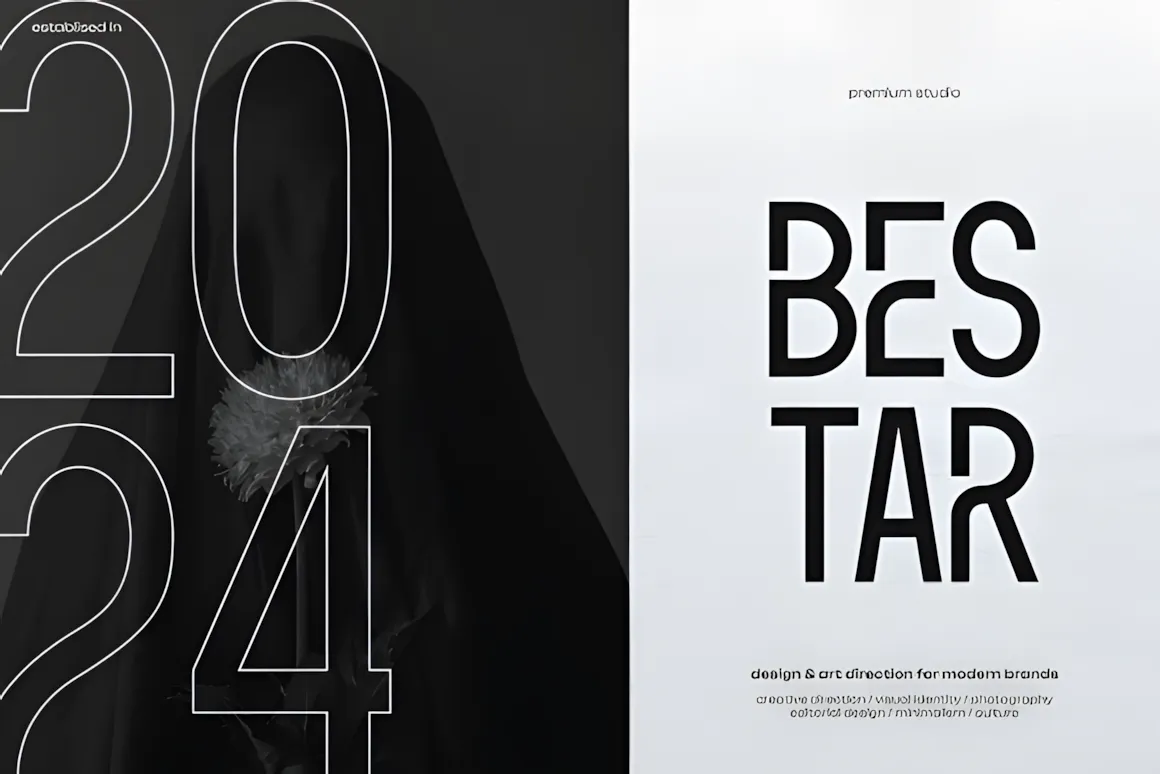
Feaqsta is a cool, modern sans serif font that's all about making a statement. It mixes clean lines with some really interesting letter shapes. The unique cuts and letter options, plus some stylish pairingsโespecially in the F and Rโmake it stand out.
Feaqsta has a simple but memorable look, so itโs great for things like fancy fashion brands, magazines, cool packaging, album covers, and modern website headings. Stick with the regular style if you want clarity, or play around with the letter pairings and alternatives to give your design a stylish, futuristic feel.
3. Golke Font โ Bold Display Sans Serif with Strong Visual Impact
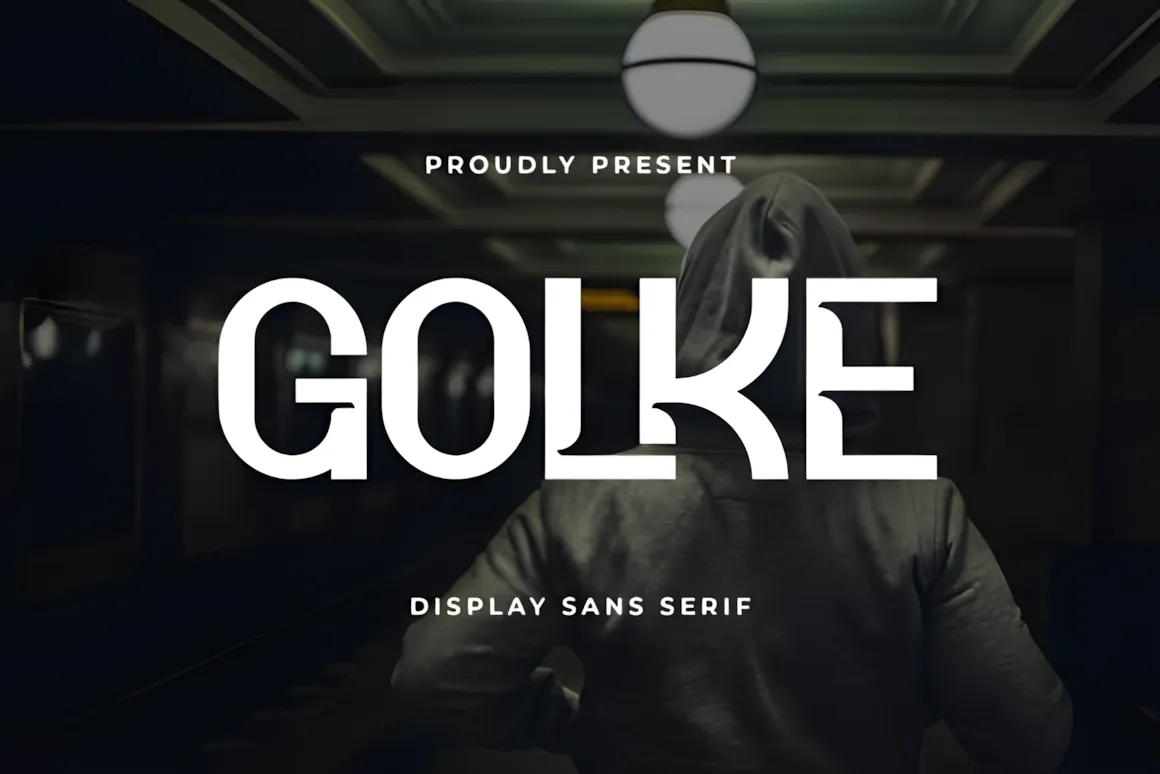
Golke is a striking display sans serif font created to deliver bold personality and powerful visual presence. With sharp angles, modern proportions, and uniquely crafted letterforms, Golke stands out with a confident, contemporary aesthetic.
Perfect for branding, headlines, posters, editorial layouts, and digital content, this font is designed to grab attention and elevate creative projects that demand a strong typographic voice.
โ Display sans serif
โ Sharp, modern letterforms
โ Ideal for branding & headlines
โ Perfect for print and digital design
4. Merdale Font โ Modern Display Sans Serif with Artistic Style
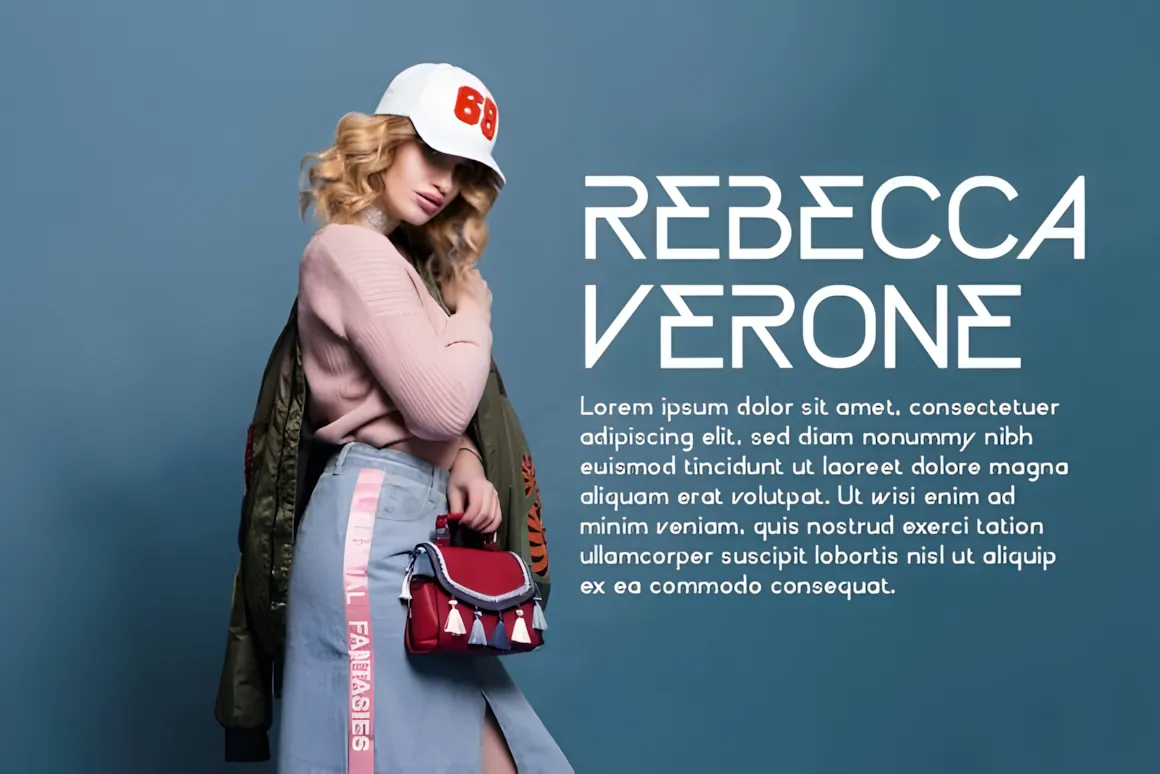
Merdale is a modern display sans serif font with a distinctive character and creative flair. Featuring playful curves, clean lines, and carefully designed letterform variations, it delivers a bold yet approachable look that feels both modern and expressive.
Perfect for magazine headlines, posters, business cards, product packaging, and digital branding, Merdale helps your designs stand out with confidence and style.
โ Modern display sans serif
โ Artistic yet clean letterforms
โ Ideal for print & digital branding
โ Great for headlines and packaging
5. Infinity Font โ Bold Geometric Sans Serif for Strong Branding
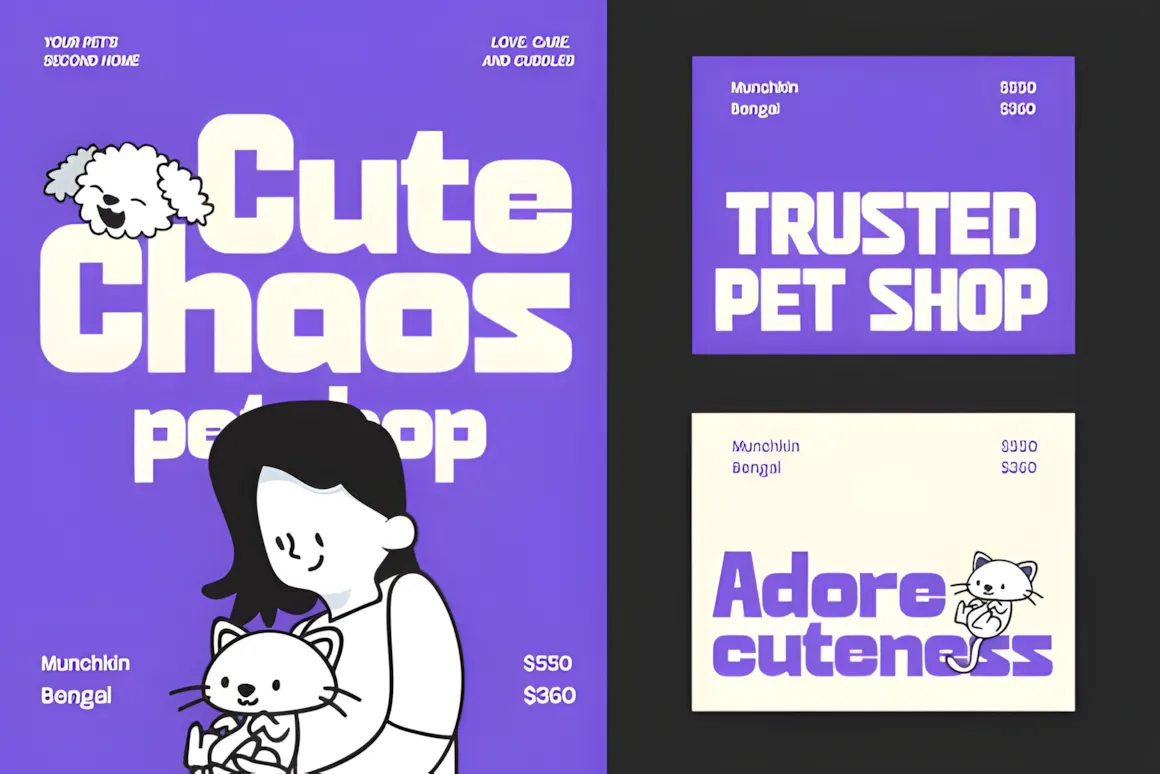
Infinity is a bold display sans serif font that blends modern minimalism with a powerful geometric structure. Designed to grab attention, it features thick, solid letterforms, clean curves, and minimal contrast for maximum clarity and impact.
Perfect for headlines, statement branding, logo design, editorial titles, and bold packaging. Infinity delivers balance, strength, and simplicityโmaking it an excellent choice for tech, sports, urban, and fashion visuals.
โ Bold geometric sans serif
โ Strong, clean letterforms
โ Ideal for branding, logos & headlines
โ Perfect for modern and high-impact design
6. Haunted Nights Font โ Retro Halloween Display Sans Serif
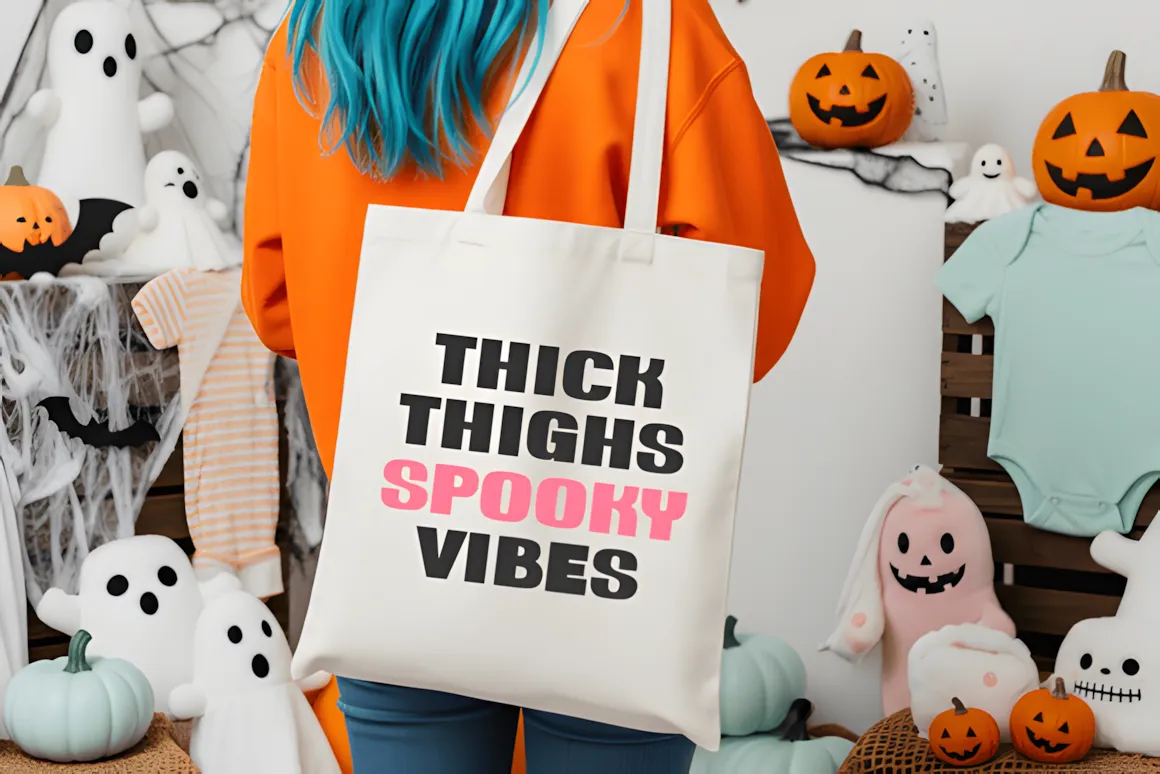
Haunted Nights is a bold retro display sans serif font designed to capture the spooky spirit of Halloween. With its strong letterforms and playful eerie vibe, this font brings a ghoulish charm to both personal and commercial projects.
Perfect for Halloween t-shirts, mugs, tumblers, tote bags, pillows, posters, crafts, and spooky editorial layouts. Haunted Nights also works beautifully for magazines and themed designs that need a touch of the macabre with a fun, retro twist.
โ Retro Halloween display font
โ Spooky yet bold sans serif style
โ Great for print, merch & posters
โ Ideal for seasonal and themed designs
7. Outsiders Original Font โ Modern Geometric Display Sans Serif
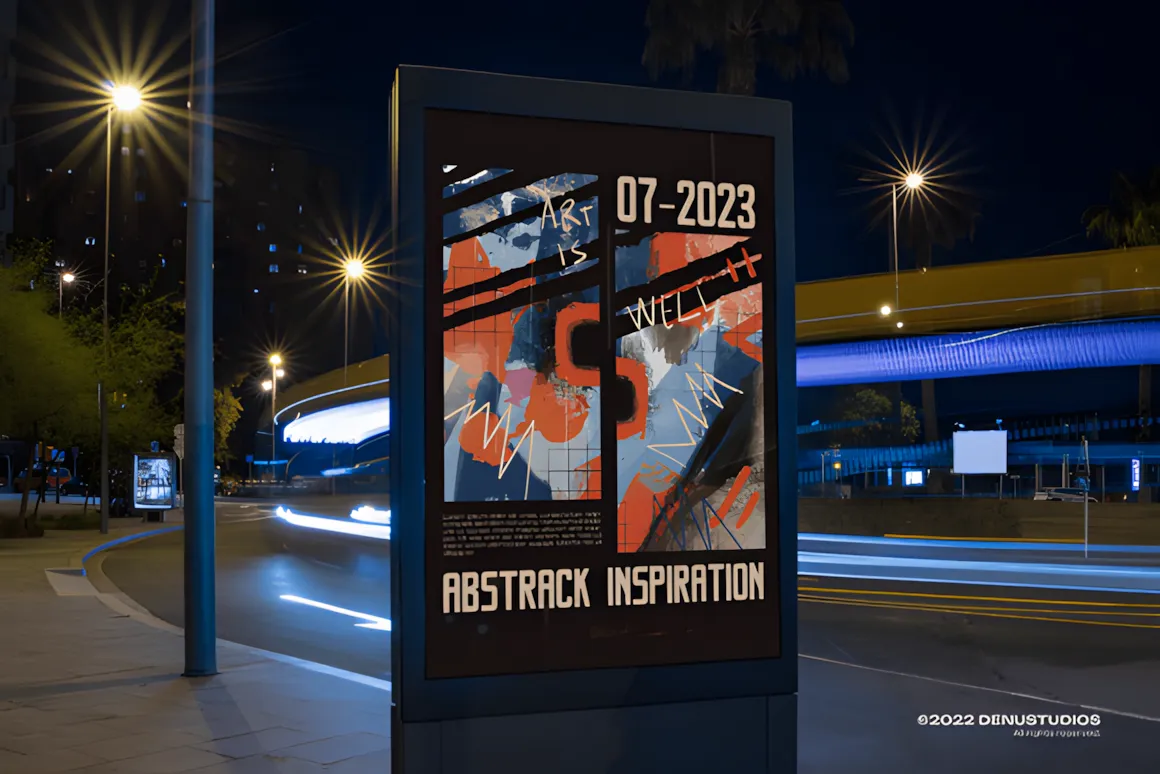
Outsiders Original is a modern display sans serif built on a bold geometric foundation with distinctive character cuts. Sharp angles, modular curves, and a strong vertical rhythm give this typeface a powerful, contemporary presence.
Designed for impactful headlines, branding, editorial layouts, and digital interfaces, Outsiders Original offers over 280 glyphs, including ligatures and alternate characters, allowing for expressive and flexible typography across creative projects.
โ Modern geometric display sans serif
โ Sharp angles & modular letterforms
โ Ligatures and alternates included
โ Ideal for branding, editorial & UI design
8. Keighley Font โ Elegant Modern Display Sans Serif
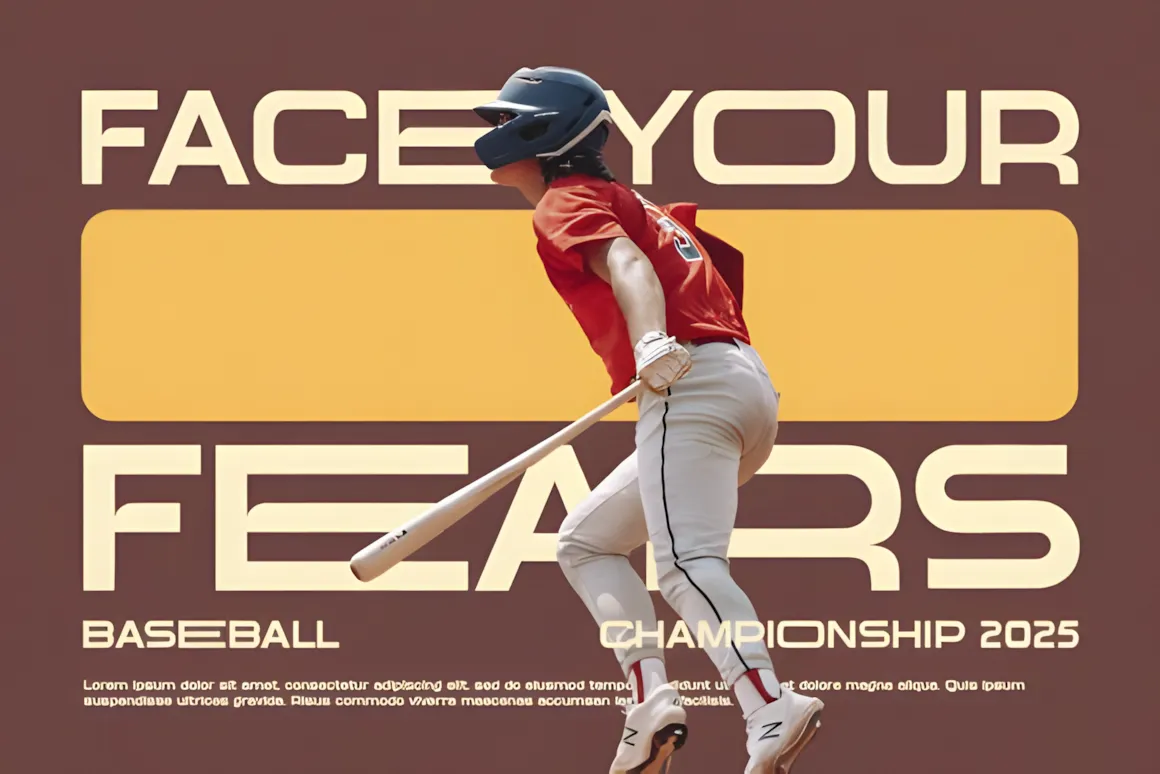
Keighley is a modern display sans serif font with an elegant and refined character. Its clean shapes and contemporary feel make it a versatile choice for both print and digital design.
Perfect for magazines, packaging, posters, shopping bags, t-shirts, book covers, photography projects, special events, and stylish branding. Keighley adds a polished, modern touch to any creative layout.
โ Elegant modern display sans serif
โ Clean and versatile letterforms
โ Ideal for editorial & packaging design
โ Great for print and digital projects
9. Zenovak Font โ Futuristic Sports Display Sans Serif
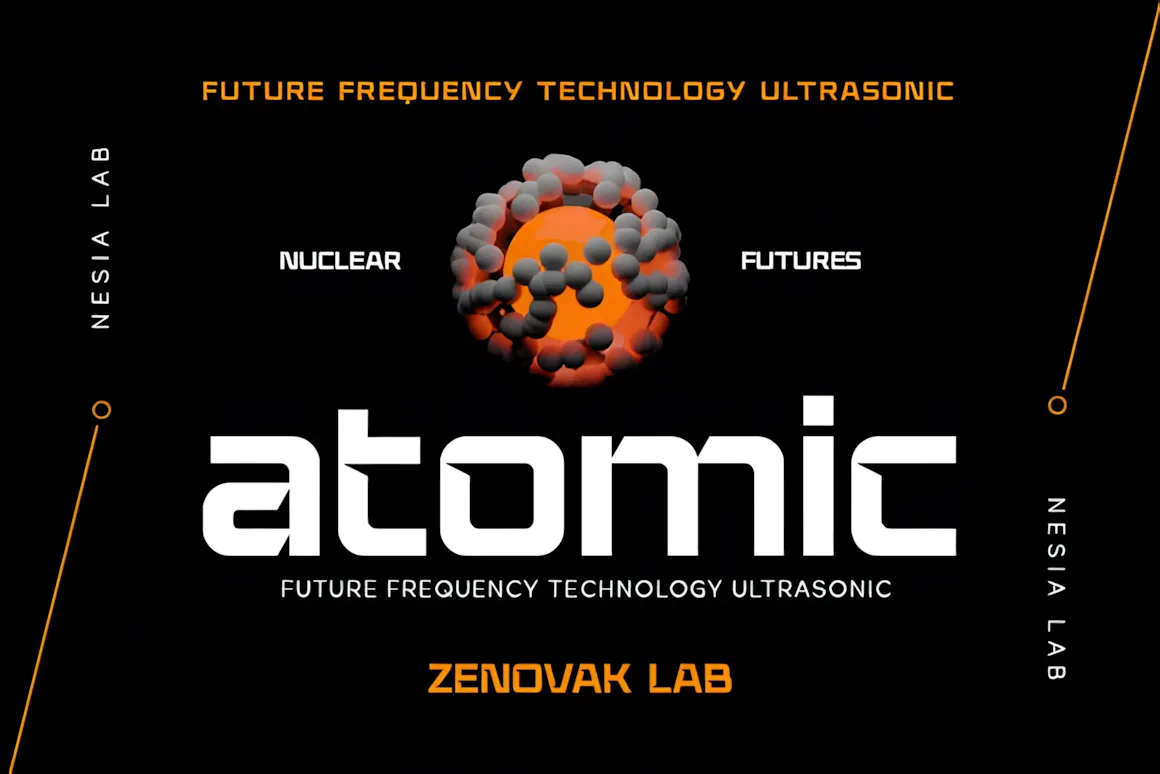
Zenovak is a bold sports display sans serif font with a techno, futuristic, and sci-fi-inspired style. Designed for high-energy visuals, it delivers a strong modern feel with sharp angles and dynamic character shapes.
Perfect for logo branding, e-sports designs, gaming projects, sports racing visuals, supercar brands, music posters, website headers, modern advertising, book covers, and special events. Zenovak also fits perfectly in retro 80s-inspired and futuristic concepts.
โ Futuristic & techno display font
โ Ideal for sports, gaming & e-sports
โ Strong sci-fi and modern aesthetic
โ Perfect for logos, posters & digital design
10. Bliss Bucket Font Family โ Bold Industrial Display Sans Serif
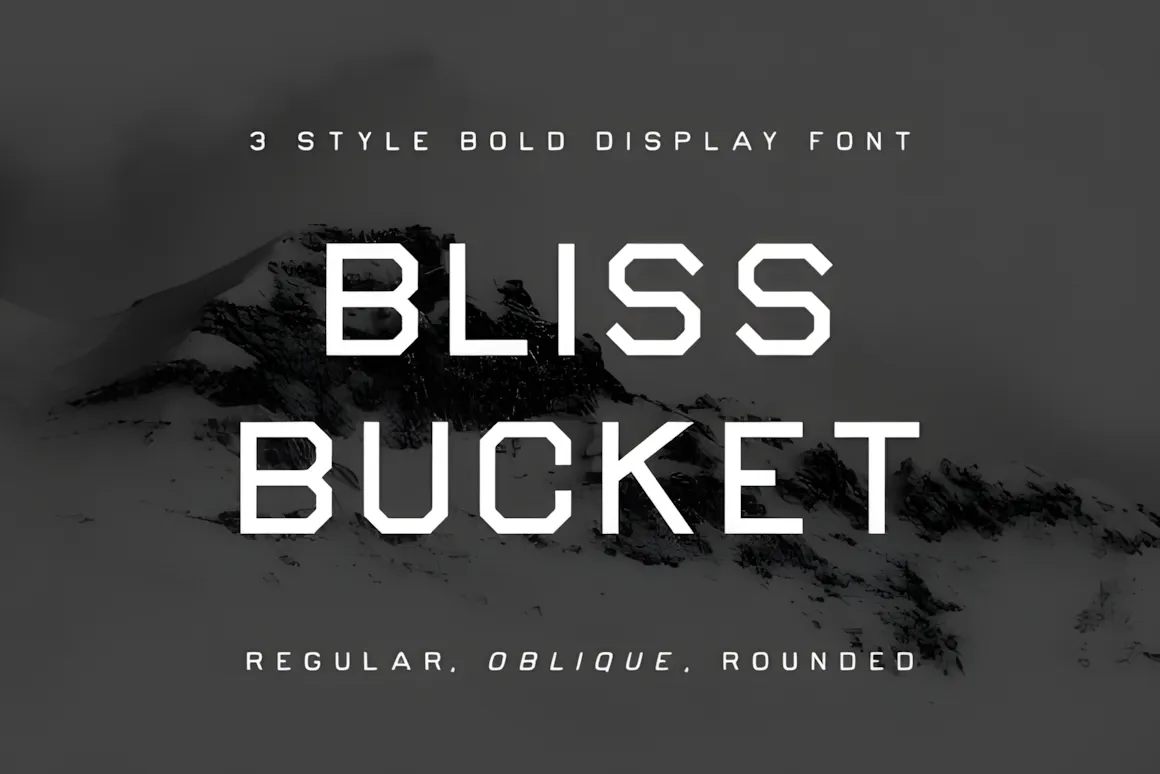
Bliss Bucket is a bold display sans serif font family inspired by the iconic typography found in the artworks of Ed Ruscha. It delivers a strong, industrial look with a confident and expressive visual presence.
The family includes three styles โ Regular, Oblique, and Rounded, making it extremely versatile for creative use. Perfect for logos, branding, magazine editorial headlines, posters, and digital web banners. The oblique style adds emphasis and motion, while the rounded version brings an old-school printing vibe to your designs.
โ 3-style display font family
โ Bold industrial sans serif
โ Inspired by art & modern typography
โ Ideal for branding, editorial & digital design
11. Molani Font โ Modern Sans Serif Display with Alternates
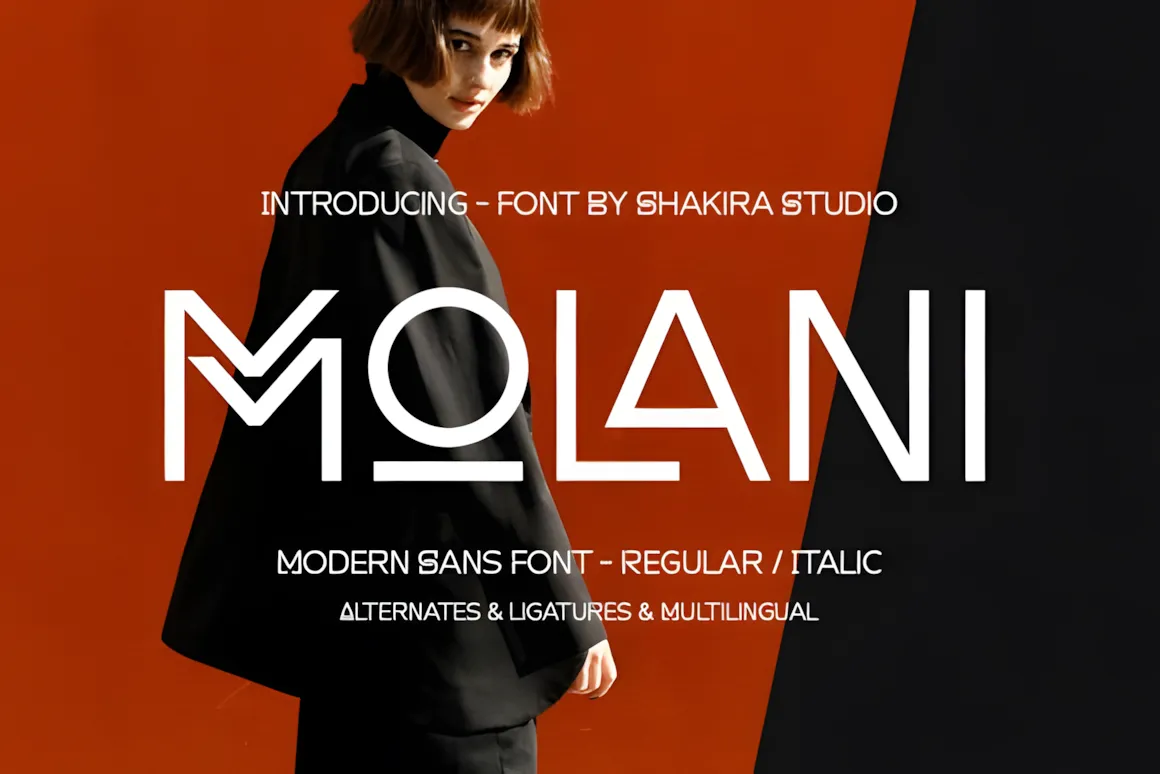
Molani is a modern sans serif display font designed for a clean, contemporary look. It comes in Regular and Italic styles and includes stylish alternates, ligatures, and multilingual support, giving designers flexibility and creative control.
With its sharp lines and excellent readability, Molani is ideal for branding, editorial layouts, fashion projects, and digital experiences. A perfect balance of precision and trend-forward design, this font elevates modern visual identities.
โ Modern sans serif display font
โ Regular & Italic styles
โ Alternates, ligatures & multilingual support
โ Ideal for branding, editorial & digital design
12. Klareon Font โ Futuristic Display Sans Serif for Modern Branding
Klareon is a bold display sans serif font that pushes modern typography into a futuristic direction. Built with thick geometric letterforms, sharp terminals, and distinctive angular cutouts, it delivers an architectural, sci-fiโinspired aesthetic with strong visual impact.
Perfect for tech brands, gaming interfaces, cinematic titles, and avant-garde fashion projects. Klareon includes extended character options with ligatures and alternates, allowing you to craft custom-looking logos and powerful headlines. Pair it with dark textures or neon accents to amplify its high-tech vibe.
โ Futuristic display sans serif
โ Geometric forms with angular details
โ Ligatures & alternates included
โ Ideal for tech, gaming & bold branding
13. GC Inklab Font โ Modern Semi-Display Sans Serif
GC Inklab is a semi-display sans serif font that combines clean geometric structure with subtle typographic quirks. Designed to make a confident visual statement, it offers excellent clarity while maintaining a modern, distinctive character.
Ideal for headlines, modern branding, editorial design, digital interfaces, UI systems, tech projects, posters, and creative identities. With balanced letterforms and a forward-thinking yet approachable style, GC Inklab helps your designs feel precise, contemporary, and memorable.
โ Semi-display sans serif
โ Clean geometric shapes with unique details
โ PUA-encoded for easy access to special characters
โ Perfect for branding, UI & editorial design
14. Envelope Valentine Font โ Romantic Handwritten Display Sans Serif
Envelope Valentine is a tall, slender handwritten display sans serif font created for romance and elegance. With clean elongated lines and a charming heart detail on the letter โiโ, this typeface is perfect for designs that speak from the heart.
Ideal for Valentineโs Day cards, wedding stationery, love letters, boutique packaging, jewelry branding, and elegant social media quotes. Envelope Valentine beautifully balances a refined, professional look with the warmth of a hand-written note. Pair it with soft pastel colors and floral imagery for a dreamy, romantic aesthetic, or use it with wide letter spacing for a chic, modern luxury feel.
โ Romantic handwritten display font
โ Elegant & slender letterforms
โ Perfect for weddings, Valentineโs & branding
โ Chic, intimate, and stylish aesthetic
15. Bozilla Font โ Bold Condensed Display Sans Serif
16. Luicy Font โ Bold Retro-Futuristic Display Sans Serif
Luicy is a fresh and bold display sans serif font that mixes retro-futuristic energy with playful, bubble-like shapes. Its thick rounded forms and vibrant personality make it instantly eye-catching and fun.
Perfect for streetwear branding, Y2K-inspired designs, party flyers, music festival graphics, posters, and bold digital visuals. Luicy is made to stand out and bring a youthful, energetic vibe to any creative project.
โ Bold display sans serif
โ Retro-futuristic & Y2K style
โ Rounded, playful letterforms
โ Ideal for streetwear, music & event design
17. Verigo Font โ Bold Semi-Condensed Display Sans Serif
Verigo Bold is a modern display sans serif font with a semi-condensed structure, designed to deliver strong visual impact with clean, elegant shapes. Its confident curves and sharp proportions make it stand out while maintaining excellent readability.
Perfect for movie titles, branding, posters, logos, and eye-catching creative projects in both print and digital formats. Verigoโs semi-condensed design allows you to fit more text into limited space without sacrificing clarity or style.
โ Bold semi-condensed display sans serif
โ Clean, modern & highly legible
โ Ideal for titles, branding & posters
โ Perfect for print and digital design
18. Fingard Font โ Modern Extended Display Sans Serif
Fingard is a modern extended display sans serif font designed for high-impact, architectural clarity. Featuring bold geometric shapes and elongated horizontal proportions, it delivers a powerful minimalist and contemporary aesthetic.
Subtle curves within its straight lines โ especially visible in letters like g, a, and r โ add a refined, almost futuristic touch. Fingard is perfect for striking logotypes, tech and startup branding, cinematic titles, posters, and modern editorial design where strong structure and clarity matter most.
โ Modern extended display sans serif
โ Bold geometric & architectural style
โ Minimalist with futuristic details
โ Ideal for branding, posters & titles
19. Zamora Font โ Modern Playful Serif with Elegant Curves
Zamora is a unique modern serif font that blends regular and stylized letterforms into one elegant, playful design. Crafted with pinpoint precision and smooth, beautiful curves, it brings charm and personality to every word.
Perfect for cartoons, playful branding, logos, greeting cards, title designs, packaging, and creative projects that need a fun yet refined touch. Zamora adds character and elegance, making your designs feel special and memorable.
โ Modern playful serif font
โ Elegant curves & stylized letters
โ Ideal for branding, logos & packaging
โ Perfect for creative and cheerful designs
20. Orbit Gate Font โ Modern Display Sans Serif (Condensed & Extended)
Orbit Gate is a modern display sans serif typeface featuring variable styles from condensed to extended, making it highly flexible for bold and contemporary branding. Its clean, futuristic structure works beautifully across a wide range of creative applications.
Perfect for logos, posters, headlines, editorial design, and modern brand identities. Orbit Gate is PUA-encoded, allowing easy access to all glyphs and ligatures without extra software โ ideal for efficient, creative workflows.
โ Modern display sans serif
โ Variable condensed & extended styles
โ PUA-encoded with glyphs & ligatures
โ Ideal for branding, posters & headlines
Read More: While display sans serif fonts are excellent for making a statement, for those times when a project calls for a touch of timeless elegance, exploring the 8 Best Serif Fonts for Logo Design: Modern, Luxury & Display Picks could be just what you need.
Fonts are more than lettersโtheyโre design tools that set the mood, speak for your brand, and make ideas come to life. Display sans serif fonts are among the most powerful in a designerโs arsenal. They're bold, modern, clean, and perfect for grabbing attention across digital and print platforms alike.
So go aheadโexperiment, be bold, and let your typography do the talking.
FAQs
u003cstrongu003e1. What is the best free display sans serif font for web design?u003c/strongu003e
u003cemu003eMontserratu003c/emu003e and u003cemu003ePoppinsu003c/emu003e are among the best free display sans serif fonts for web use. Both are available on Google Fonts, highly legible, and responsive across devices.
u003cstrongu003e2. Can I use display fonts for body text?u003c/strongu003e
Not recommended. Display fonts are optimized for large sizes and may be difficult to read in body text. Stick to more neutral sans serif or serif fonts for paragraphs.
u003cstrongu003e3. How do I pair sans serif fonts for branding?u003c/strongu003e
Pair a bold sans serif for headings (like u003cemu003eGotham Ultrau003c/emu003e) with a lighter, clean sans serif or a modern serif (like u003cemu003eLorau003c/emu003e) for body text. Maintain visual harmony and contrast.
u003cstrongu003e4. Whatโs the difference between geometric and grotesque sans serif fonts?u003c/strongu003e
Geometric sans serifs (like u003cemu003eFuturau003c/emu003e) use precise shapes like circles and squares. Grotesque sans serifs (like u003cemu003eHelveticau003c/emu003e) have a more humanist, slightly imperfect feel.